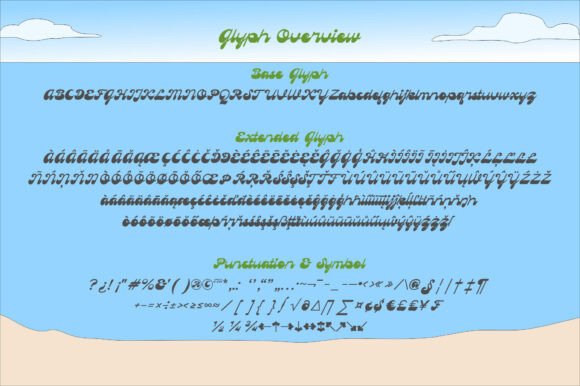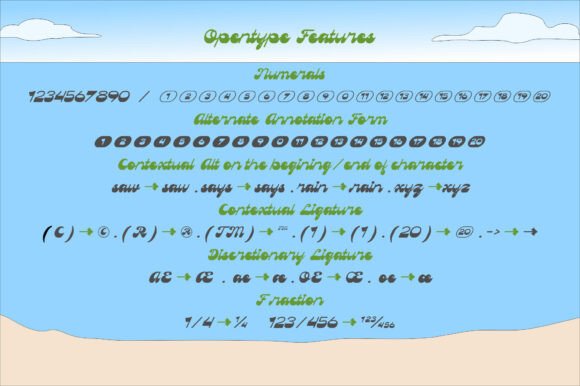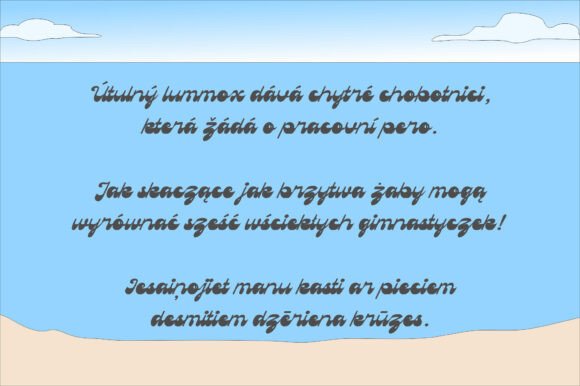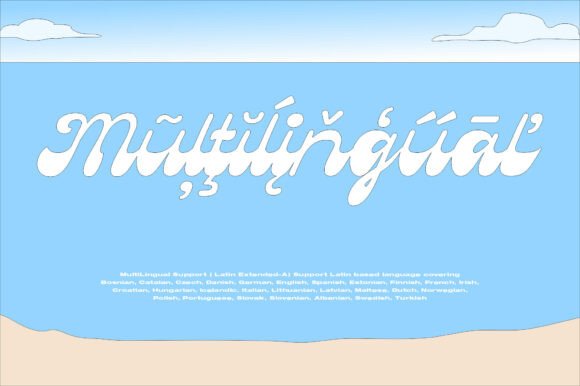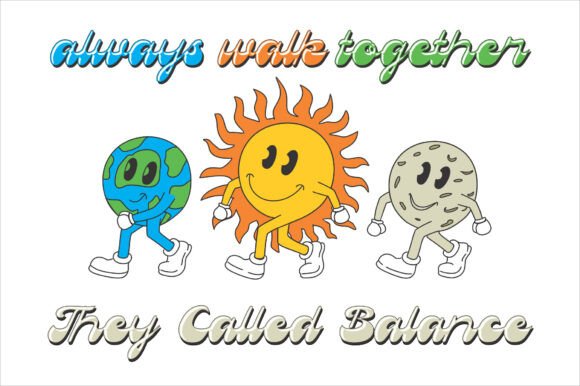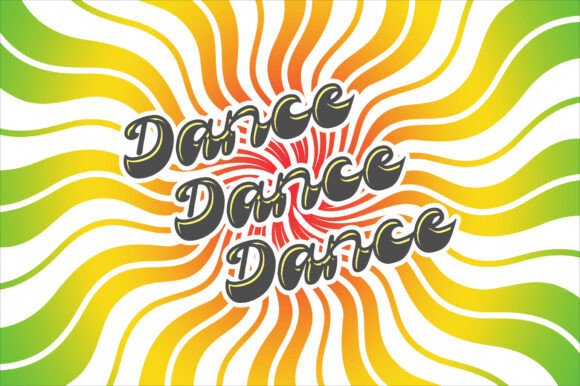
Introduction to Beachvibes Script Font
Beachvibes is a fun retro-style script font with a relaxed, beachy feel.
Its wavy, flowing letters give it a slight psychedelic touch, making it perfect for vintage designs, posters, or anything that needs a cool, laid-back vibe .
Key Features of Beachvibes Script Font
Why Choose Beachvibes Script Font?